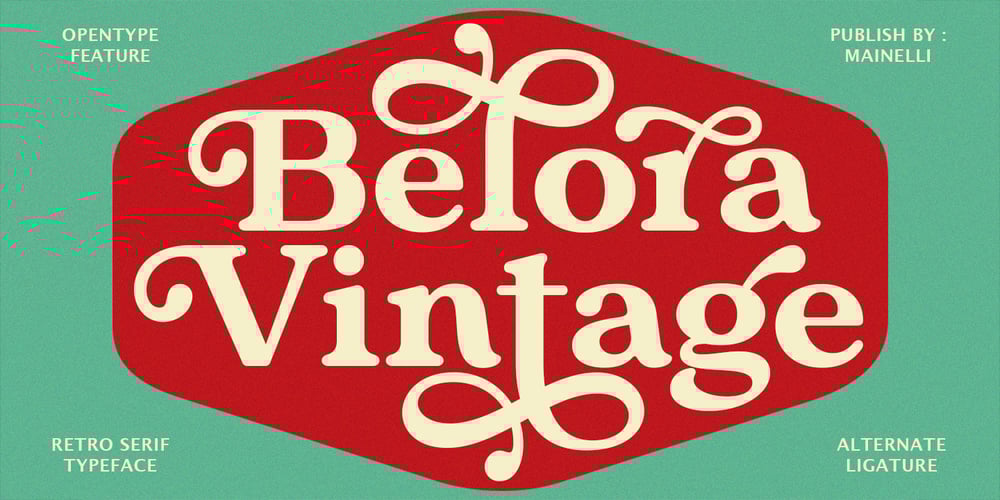
Belora Vintage Font Family was designed by Nelli Mailani and published by Mainelli. Belora Vintage contains 2 styles and family package options. Introducing Belora Vintage, a bold serif font with soft, bold edges and curves giving it a groovy 70s feel.Belora Vintage has separate lowercase and uppercase letters, as well as numbers, punctuation, and multilingual letters.With alternates and ligatures it’s perfect for fancy retro-style logos, or bold header text and much more.